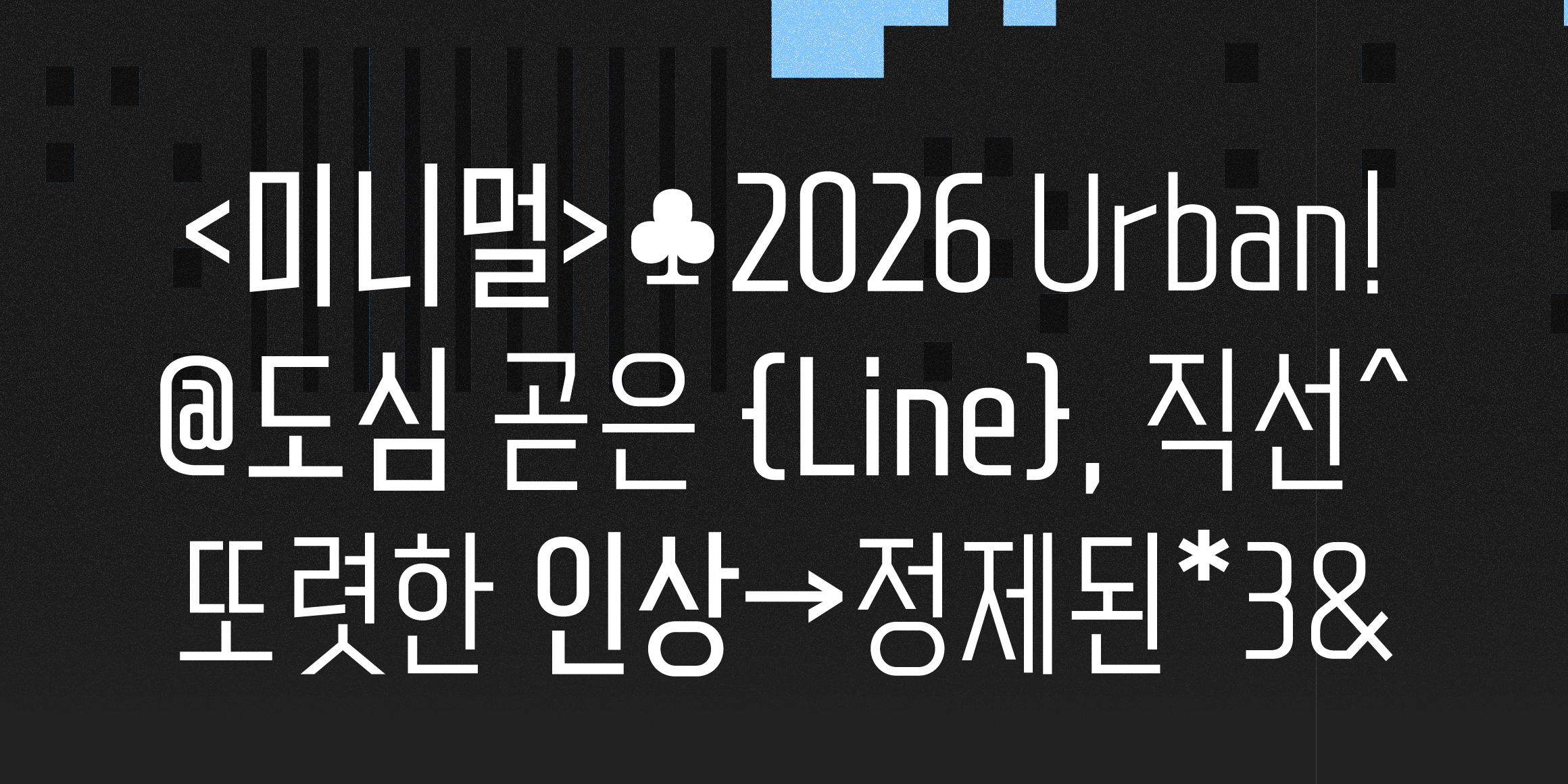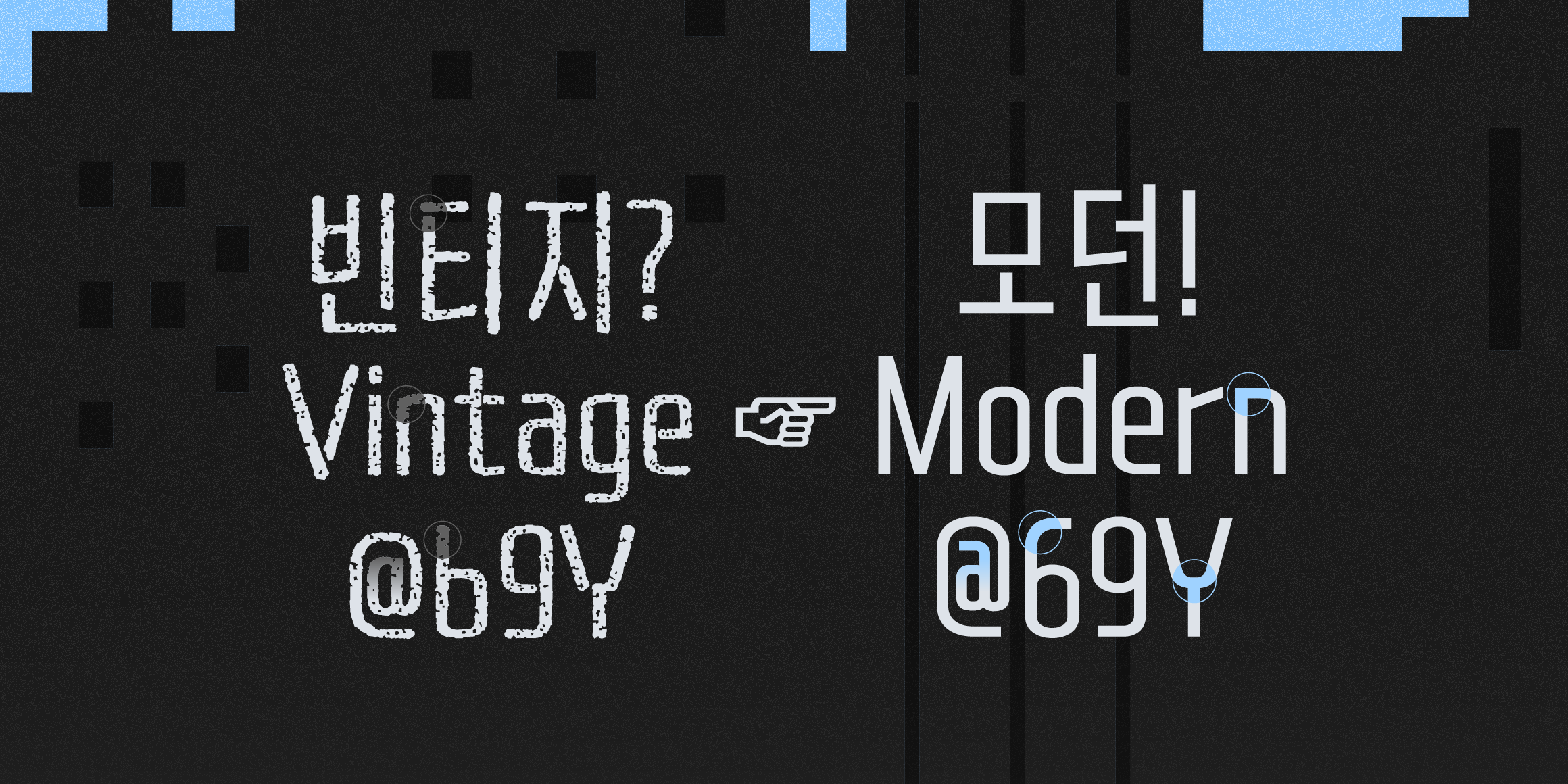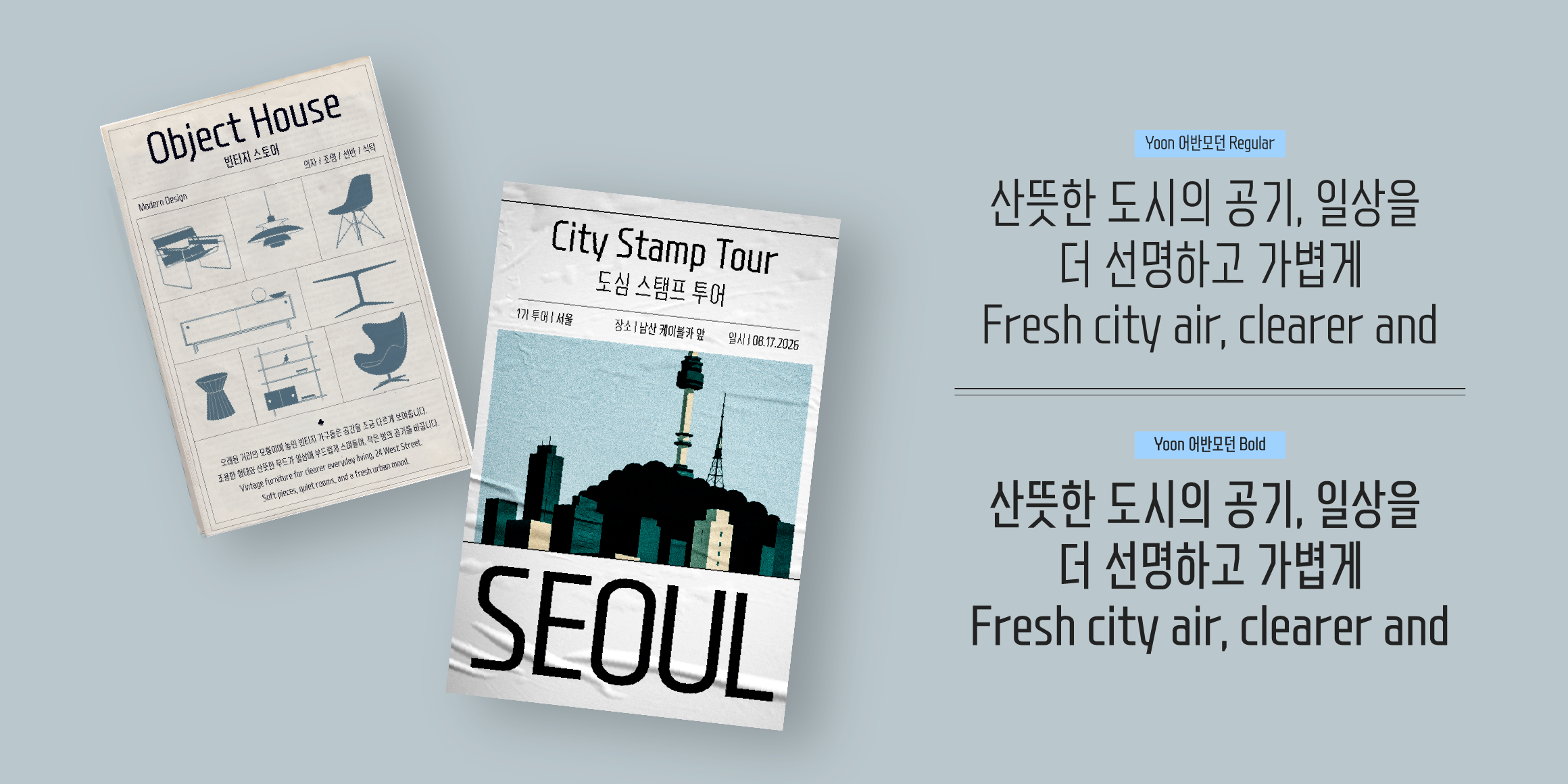
Yoon UrbanModern
Yoondesign
• Bold
• Round
• Stencil
'Yoon UrbanModern' is a refined reinterpretation of the original Urban Vintage, featuring cleaner forms and a more contemporary aesthetic. The broken stencil details have been seamlessly refined, while the proportions of each character have been carefully adjusted to create a balanced, modern appearance. Its crisp strokes and stable structure deliver clarity and confidence, allowing your message to stand out with ease. Complete your design with the clean, urban sophistication of 'Yoon UrbanModern'.